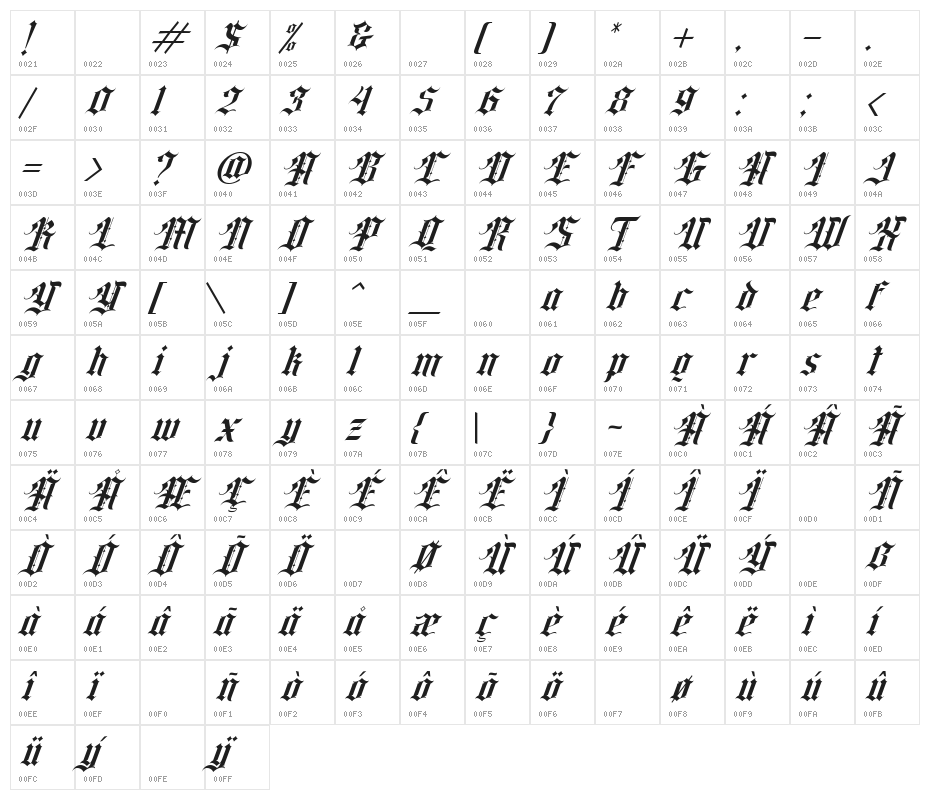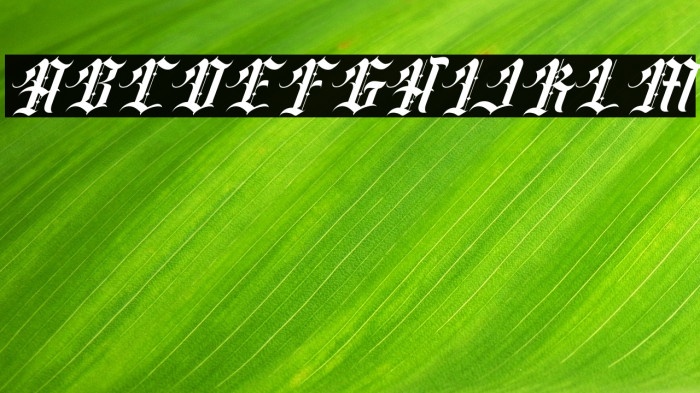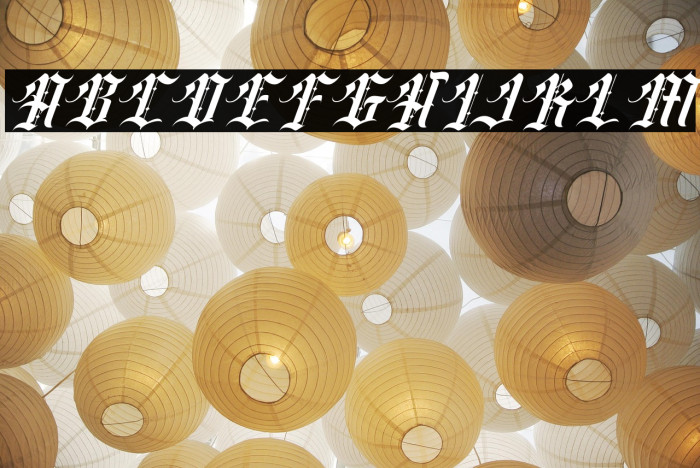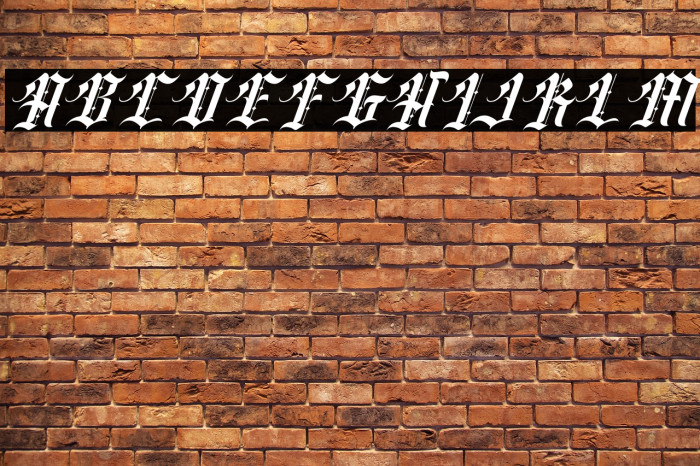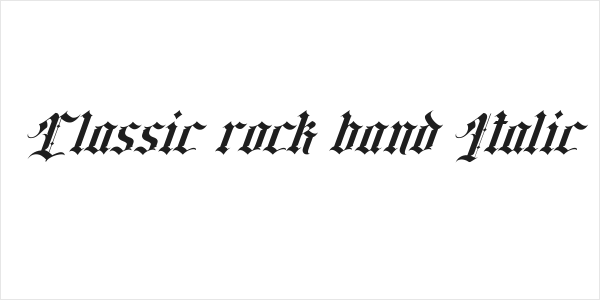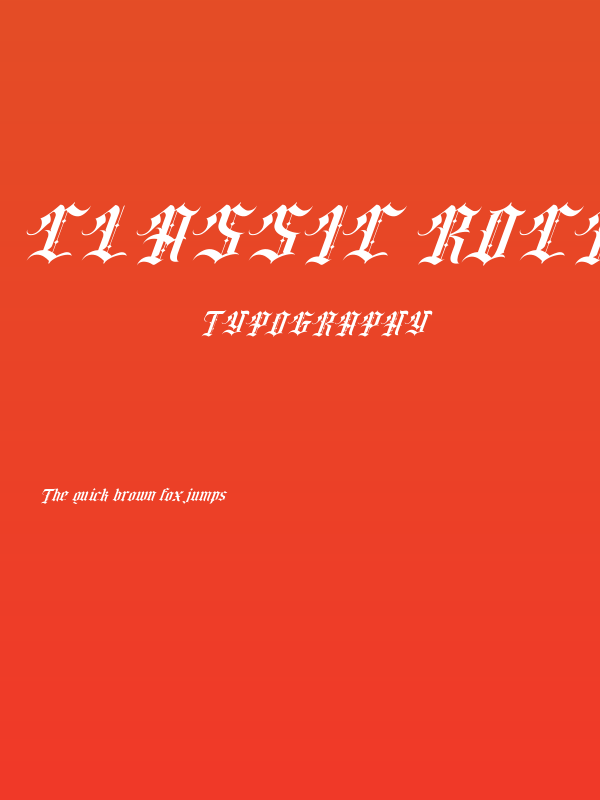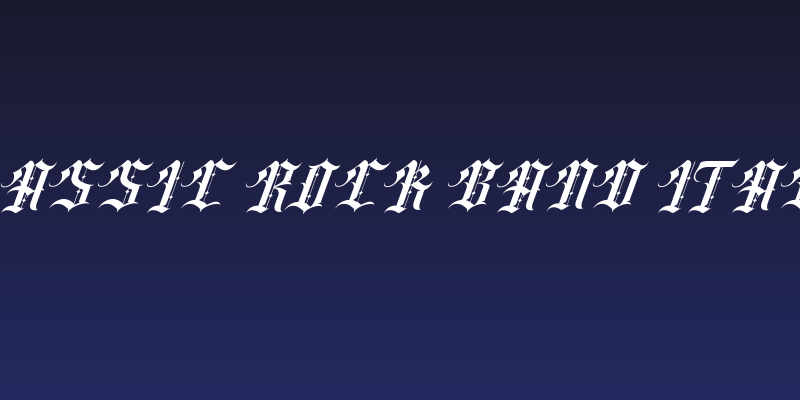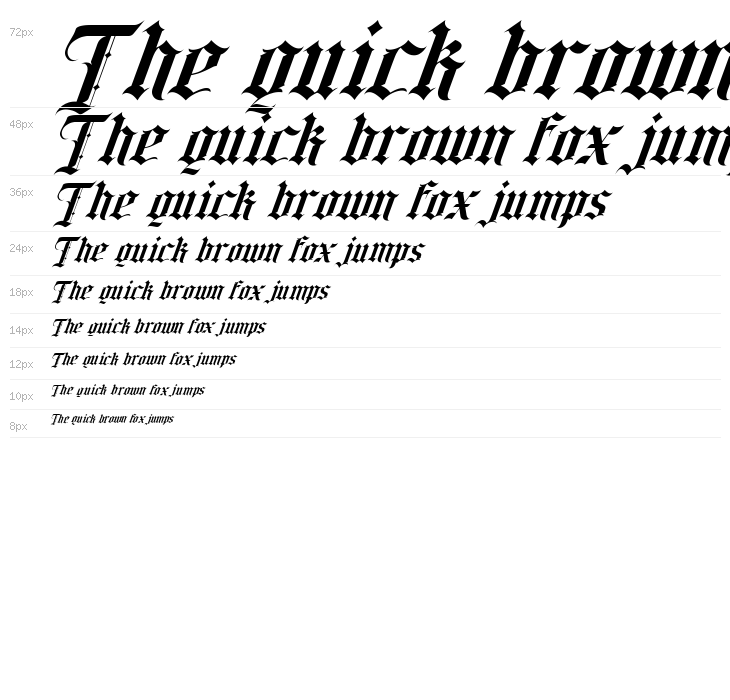
Classic rock band Italic Font
Classic rock band Italic Description
This font features a bold and dramatic blackletter style, reminiscent of traditional Gothic script. The characters are sharply angular with pronounced serifs and intricate detailing, giving it a historic and authoritative appearance. The uppercase letters are particularly ornate, with elaborate flourishes that enhance their visual impact. The lowercase letters maintain a consistent style, offering a cohesive look across the alphabet. Numbers and special characters are designed to match the overall aesthetic, ensuring uniformity. This font's strong presence makes it ideal for projects that require a touch of medieval or classic rock flair.
| Proposed Projects | Ideal for band logos, album covers, posters, and any design needing a classic rock or medieval theme. |